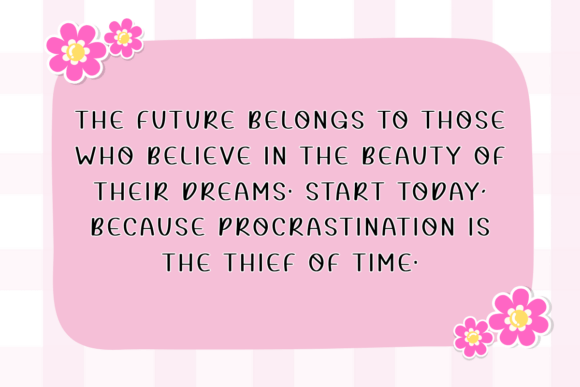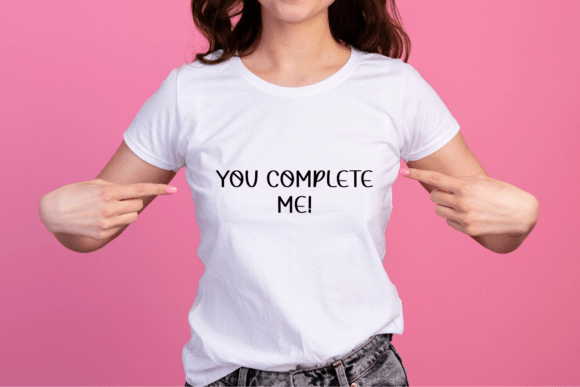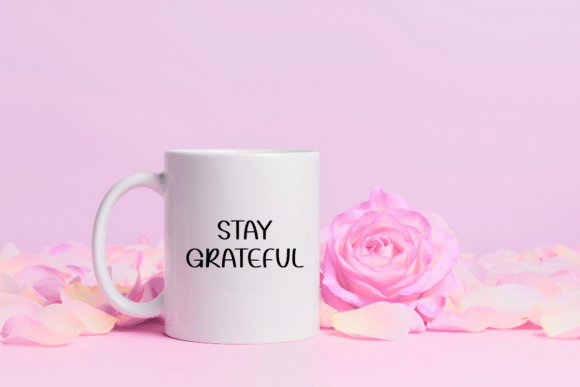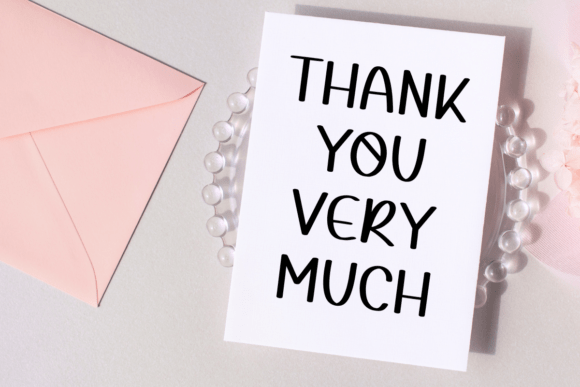
Introduction to Monserot Font
Have you ever been working on a creative project, pouring your heart and soul into it, only to feel like something is missing? That’s exactly what happened to me when I was designing a new set of stickers for a friend’s birthday. I wanted the text to be playful, yet elegant, and that’s when I stumbled upon the Monserot Font. Its unique, handwriting sans-serif style immediately caught my attention, and I knew I had to give it a try.
As a designer, I’m always on the lookout for high-quality design resources that can elevate my projects to the next level. The Monserot Font is definitely one of those resources. With its cute and charming style, it’s perfect for a wide range of creative projects, from quotes and stickers to mugs and tumblers. And the best part? It’s available for free download, making it a valuable asset for designers on a budget.
Key Features of Monserot Font
- High-quality design resource suitable for creative projects, offering a unique and stylish look.
- Monserot Font is designed with a modern aesthetic, making it an ideal choice for designers working on contemporary creative projects.
- This free font is a valuable addition to any design resource library, offering a distinctive and versatile typographic option.
- Monserot Font’s unique characteristics, such as its clean lines and geometric shapes, make it stand out as a high-quality design element.
Honest Review: Monserot Font
I recently stumbled upon the Monserot Font, and I must say it’s a great addition to any design resource. The font is available for free download, making it an excellent choice for creative projects where budget is a concern.
What works well for the Monserot Font is its high quality and sleek design. It’s perfect for titles, headings, and even body text in certain contexts. The font also comes with a transparent background, which gives designers a lot of flexibility when it comes to composition.
- ✨ High-quality design
- ✨ Transparent background for flexibility
- ⚠️ Limited character set, which might not be ideal for longer texts
- ⚠️ May not be suitable for all types of creative projects, especially those requiring a lot of character variation
Overall, I’d say the Monserot Font is a solid choice for designers who need a high-quality font for a specific project. It’s definitely worth considering for any creative project where a clean, modern look is desired.
The Monserot Font is a high-quality, free download that can be used for a variety of creative projects. This versatile font is perfect for designers and artists looking for a unique design resource.
The Monserot Font is perfect for a variety of creative projects, including:
- Presentation designs
- Document templates
- Print materials